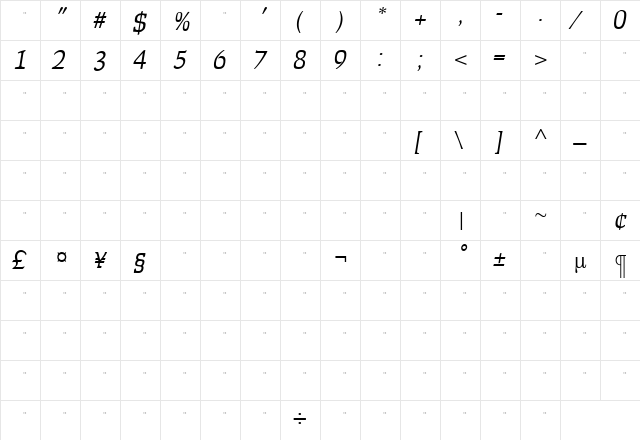
FaustLightItalicTab Roman Font Preview
FaustLightItalicTab Roman
Design Context for FaustLightItalicTab Typeface
FaustLightItalicTab is a composed and adaptable typeface that performs quietly and consistently across a wide range of design contexts. The dynamic lean of this cut emphasises speed and emphasis in any layout. Its slender proportions lend an understated elegance to any composition.
Pro Tip: Use FaustLightItalicTab for emphasis, pull quotes, and subheadings where its slanted energy can add rhythm to the layout.